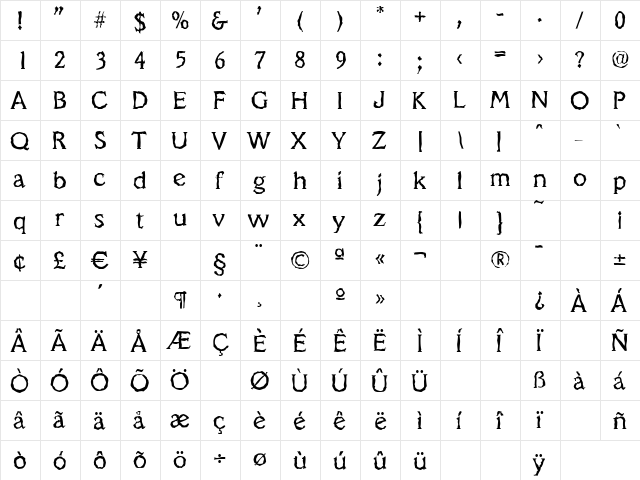
VeracruzRandom Regular
Design Context for VeracruzRandom Typeface
VeracruzRandom is a composed and adaptable typeface that performs quietly and consistently across a wide range of design contexts.